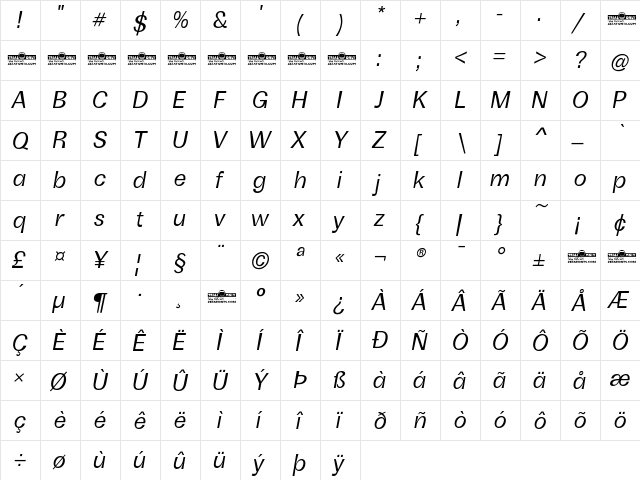
Boring Sans B Trial Italic
Design Context for Boring Sans B Trial Typeface
Boring Sans B Trial takes a measured approach to typography — its balanced proportions and neutral character make it a reliable workhorse for both digital and print work. Its italic angle brings a sense of urgency and motion to the letterforms.
Pro Tip: Try Boring Sans B Trial for annotation and caption copy alongside an upright companion — the contrast in angle creates a dynamic but ordered typographic system.